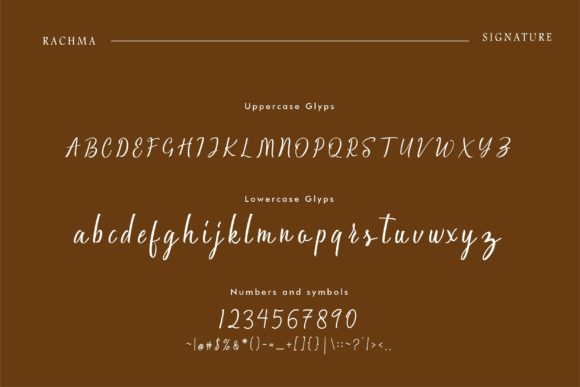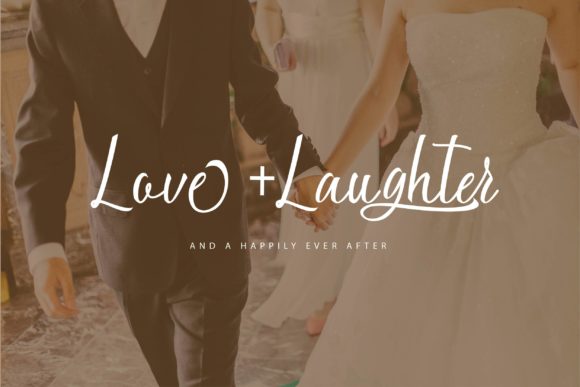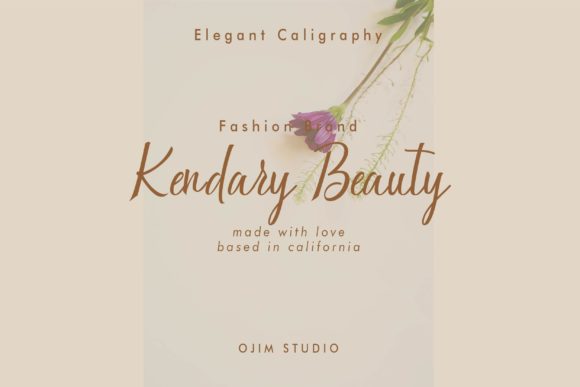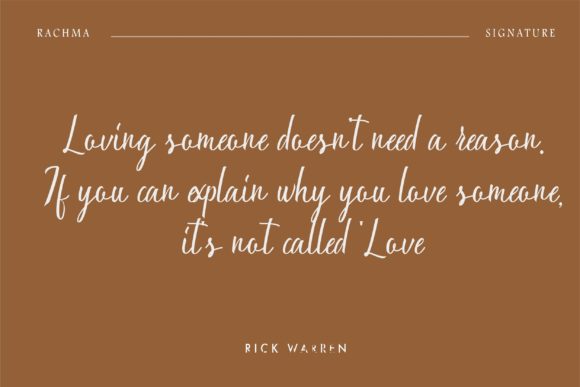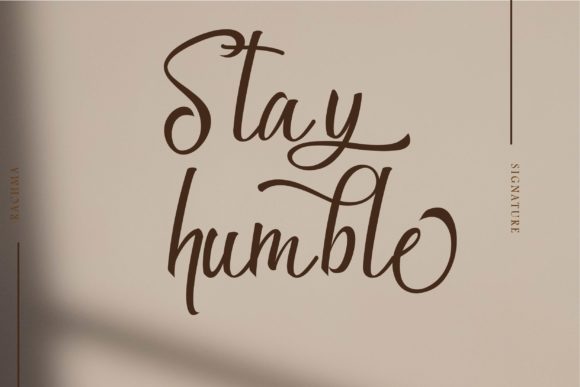
Rachma Script Font
Rachma Script is a lovely script font. Add this font to your most creative ideas, and notice how it makes them stand out! Rachma Script is PUA encoded which means you can access all of the glyphs and swashes with ease!